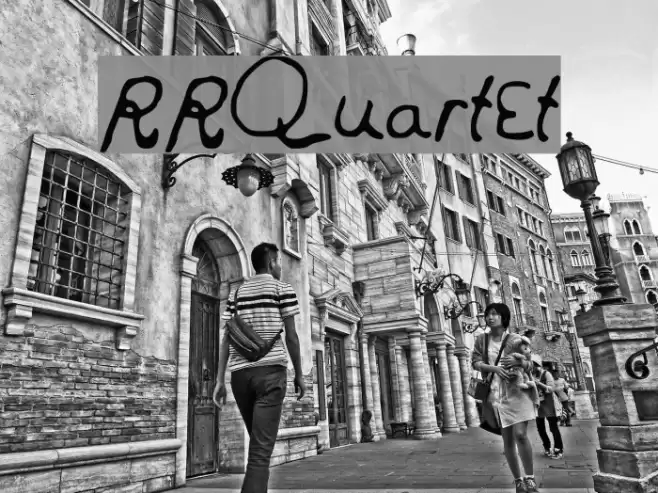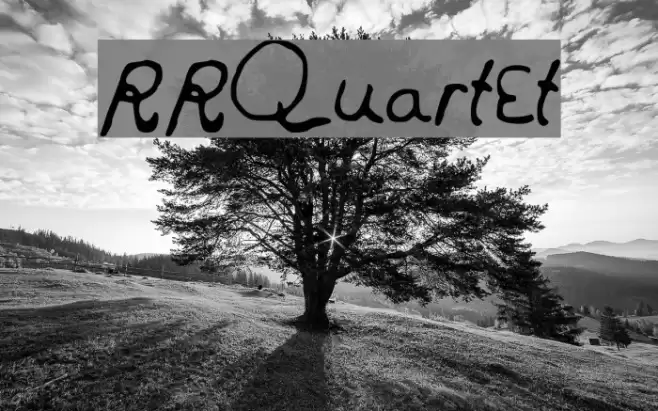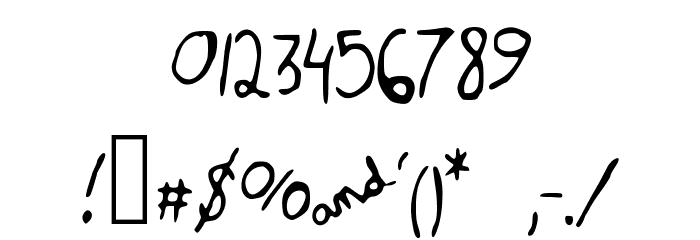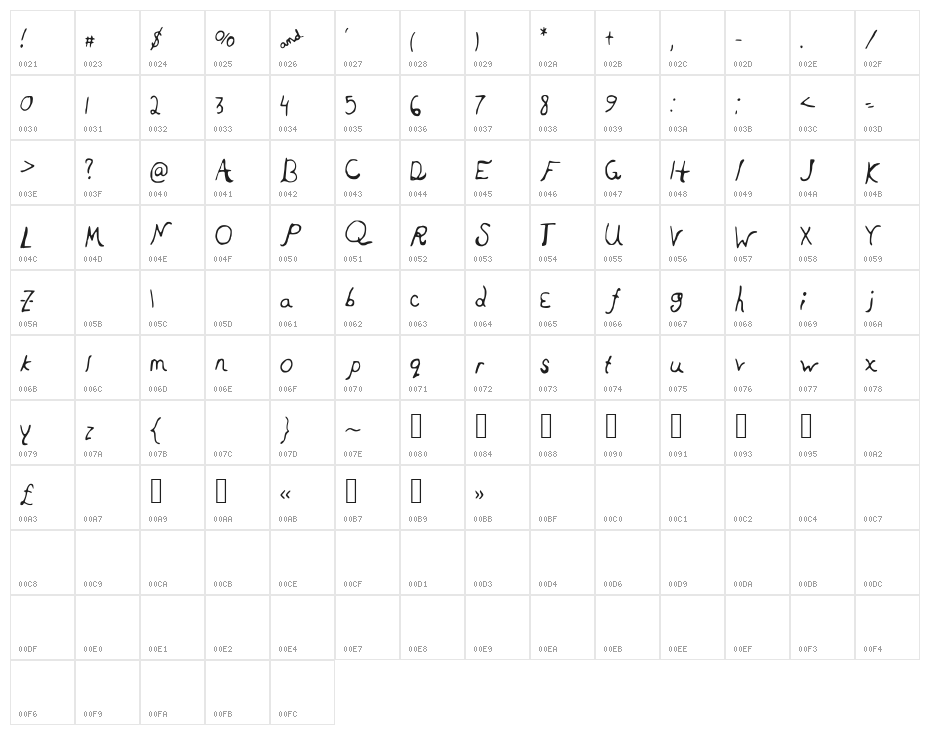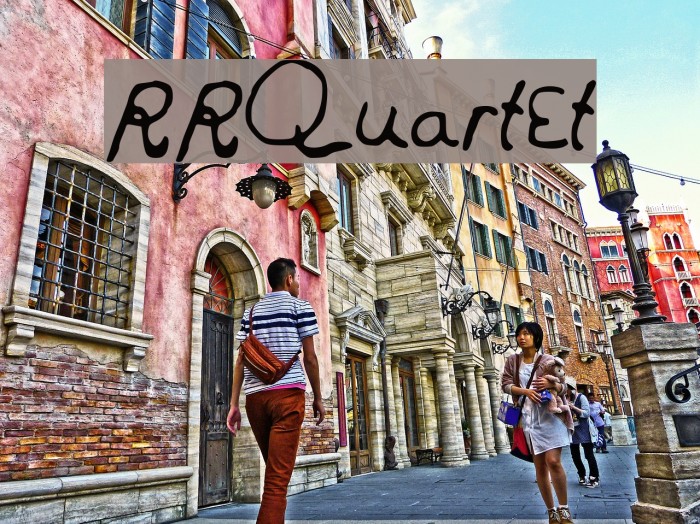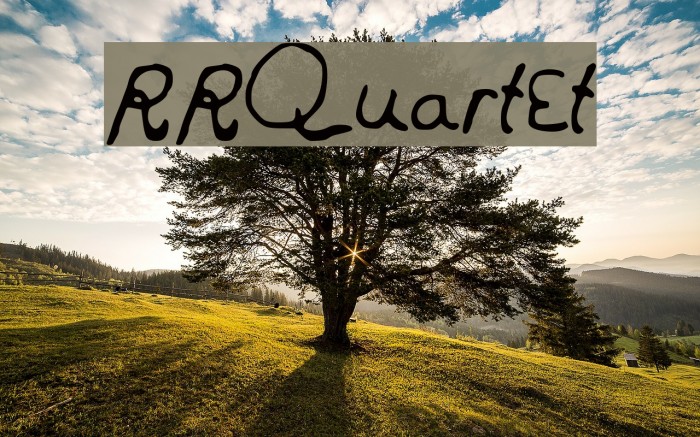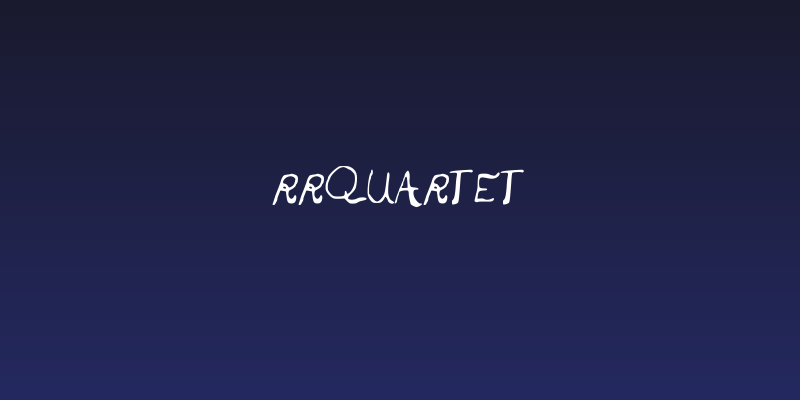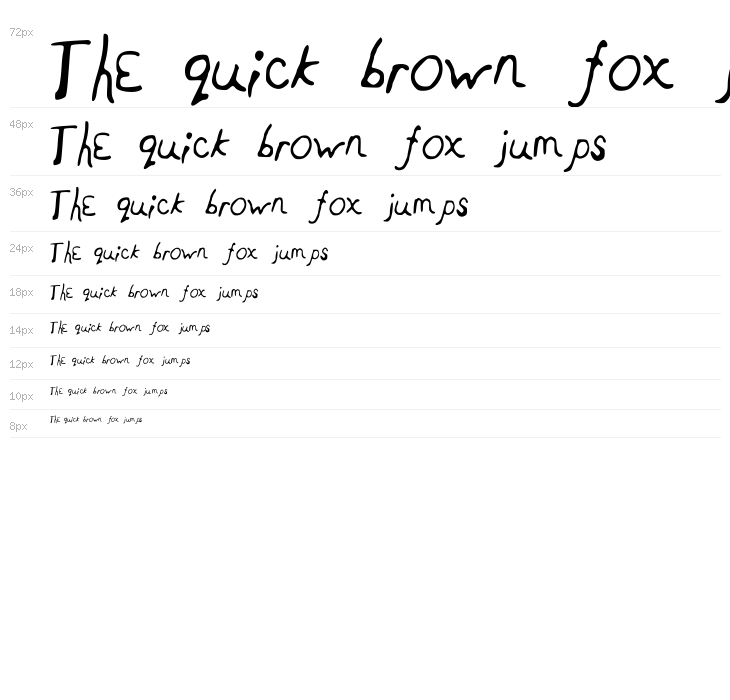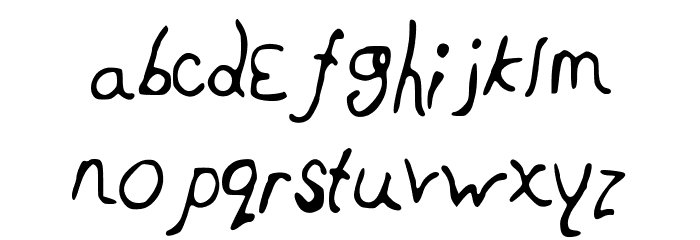
RRQuartet Font
RRQuartet Description
This font features a playful and informal handwritten style, characterized by its uneven strokes and organic flow. The letters have a whimsical, almost childlike quality, with varying thickness that adds a dynamic and lively feel. The uppercase letters are bold and expressive, while the lowercase letters maintain a consistent yet quirky appearance. Numbers and special characters follow the same playful aesthetic, making the font versatile for creative projects. The overall design is approachable and friendly, ideal for conveying a sense of fun and creativity.
A playful, handwritten font with a whimsical and informal style from Uncategorized fonts.
- Proposed Projects: Ideal for children's books, greeting cards, playful branding, and creative posters.
- Overall Style: Playful, Informal
- Use Case: Headlines, Creative projects, Informal communications